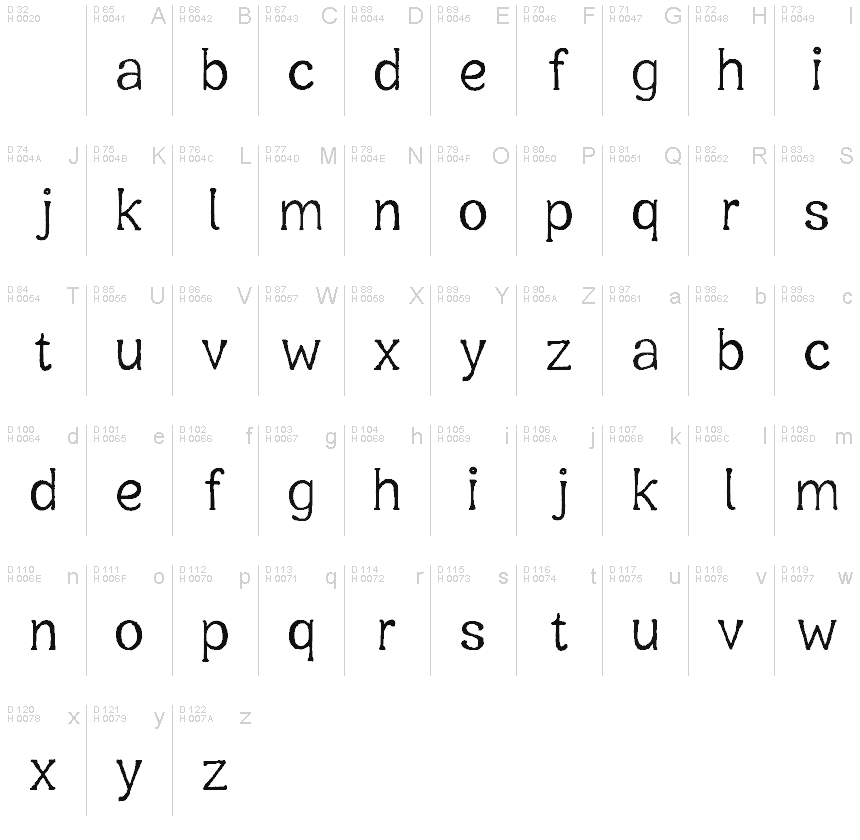
Oxygetrompal Medium
Oxygetrompal Medium is a striking display font that exudes an industrial, eroded aesthetic. Designed by Lab-room for viper78 Clerical Office, this typeface boasts a rugged, weathered appearance that lends an air of authenticity and grit to any design. The irregular, ragged edges and uneven strokes create a sense of character and individuality, making Oxygetrompal an excellent choice for editorial layouts, packaging designs, or branding applications that require a bold, impactful visual statement.
Its versatility extends beyond print, with the font equally suitable for digital interfaces and signage, where its distinctive personality can truly shine.
Oxygetrompal
Lab-room for viper78 Clerical Office - viper78 aka Vlad Viperov, Volgograd 2015